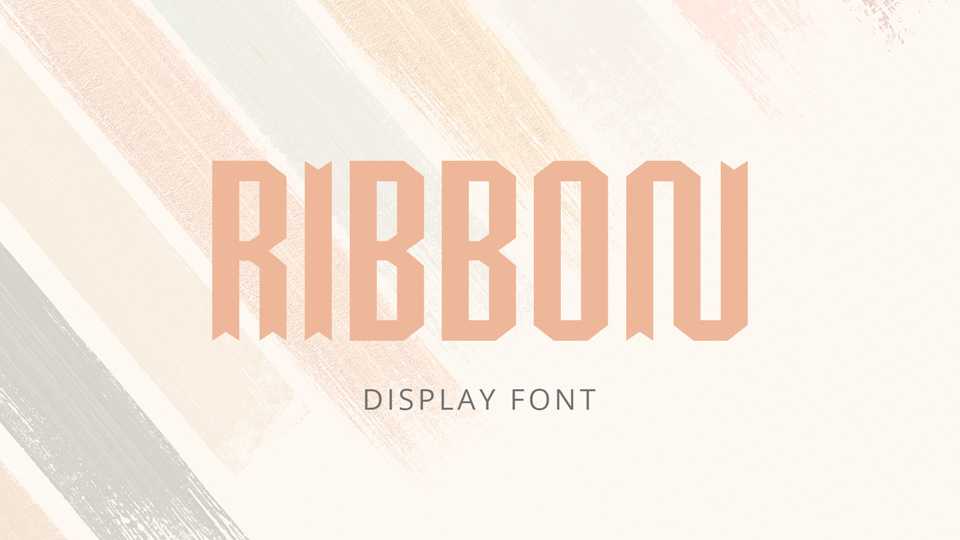
Download Ribbon font, a decorative display typeface with a pretty clean idea and attitude. Ribbon font is suitable for headlines, posters, headlines and other beautiful designs.